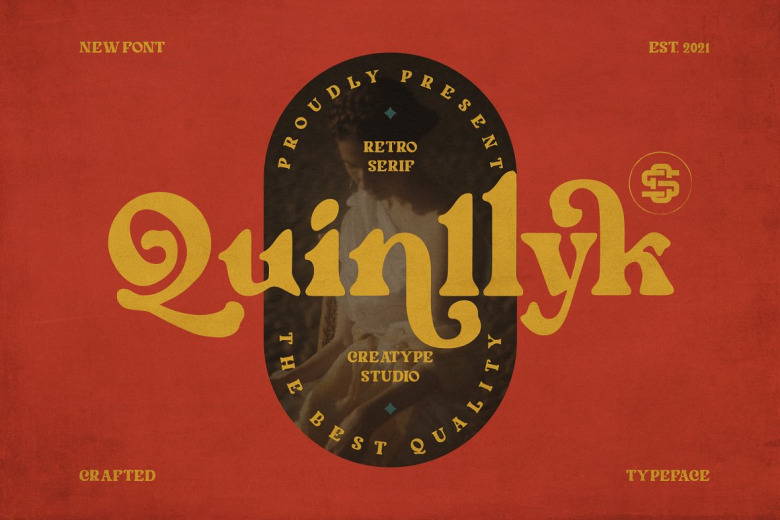
Quinlliyk Font
Quinlliyk Font is a serif display typeface that says we’re here to nostalgia! It brings back the 70s vibes with groovy, retro and unique typeface. Its thick serif and unique curves make this font even more special, of course for all types of your products. This font features more than 50 unique alternatives and 10 unique ligatures.
Quinlliyk is perfect for branding projects, logo, wedding designs, social media posts, advertisements, product packaging, product designs, label, photography, watermark, invitation, stationery and any projects that need handwriting taste.
Quinlliyk Serif Font